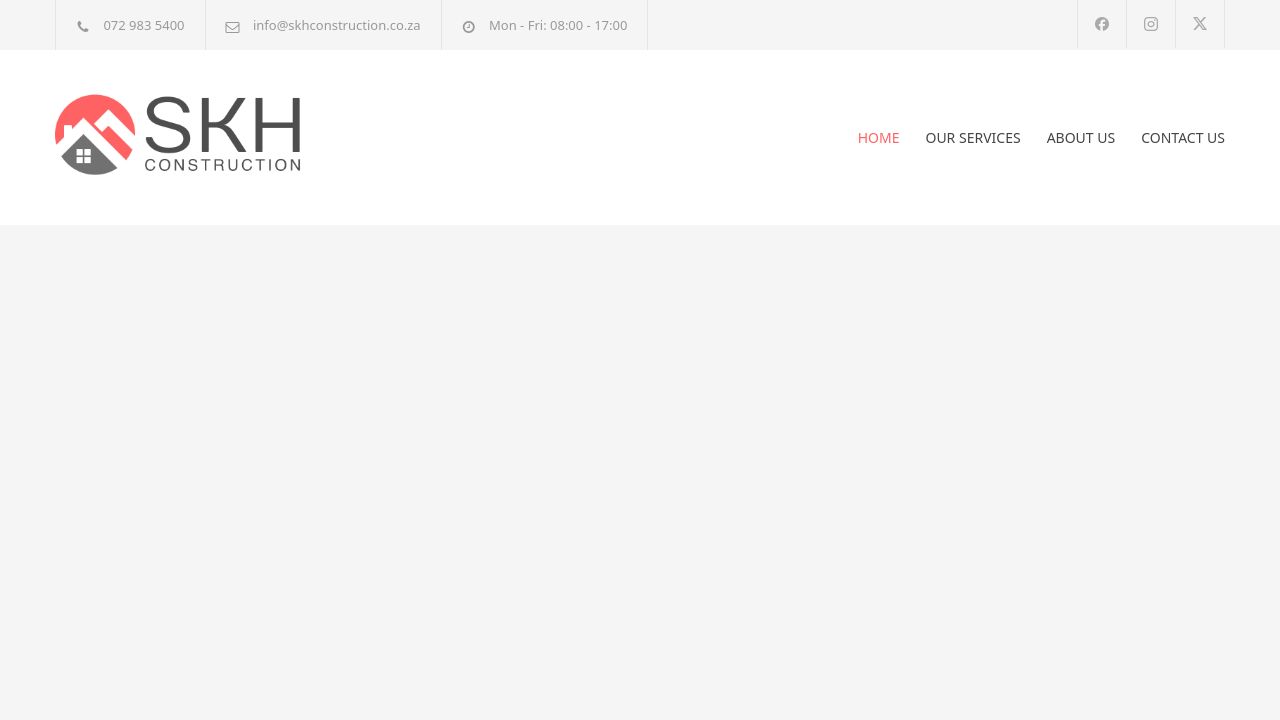
What fonts does Skhconstruction use?
SKH Construction, found at skhconstruction.co.za, showcases a thoughtful selection of fonts that mirror its commitment to building legacies. The use of Arial and Menlo ensures clear communication, while Noto Sans and Raleway add a touch of contemporary style. Custom fonts like vcpb-plugin-icons and vc_grid_v1 enhance the site’s functionality. This blend of typefaces effectively conveys reliability and innovation, appealing to a diverse audience in the construction industry.
Frequently asked questions about Skhconstruction.co.za's fonts
What fonts are used on skhconstruction.co.za?
The primary fonts used on skhconstruction.co.za include Arial, Menlo, Noto Sans, and Raleway. Custom fonts like vcpb-plugin-icons and vc_grid_v1 are also featured.
How do the fonts on skhconstruction.co.za compare to alternatives?
Arial is a widely recognized sans-serif font known for its legibility, while Raleway offers a more refined aesthetic. Noto Sans provides excellent multilingual support, making it versatile.
What font weights are available on this website?
The website primarily uses weights of 400 for Arial, Menlo, Noto Sans, Raleway, and custom fonts like vcpb-plugin-icons and vc_grid_v1. This choice promotes consistency.
What fallback fonts does skhconstruction.co.za use?
In case the primary fonts are unavailable, skhconstruction.co.za uses Consolas and Monaco as fallback options. These ensure that the text remains clear and readable.